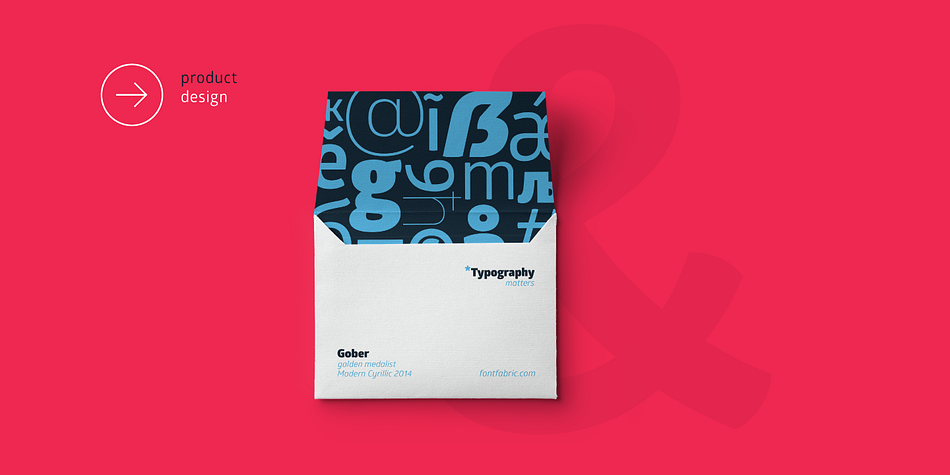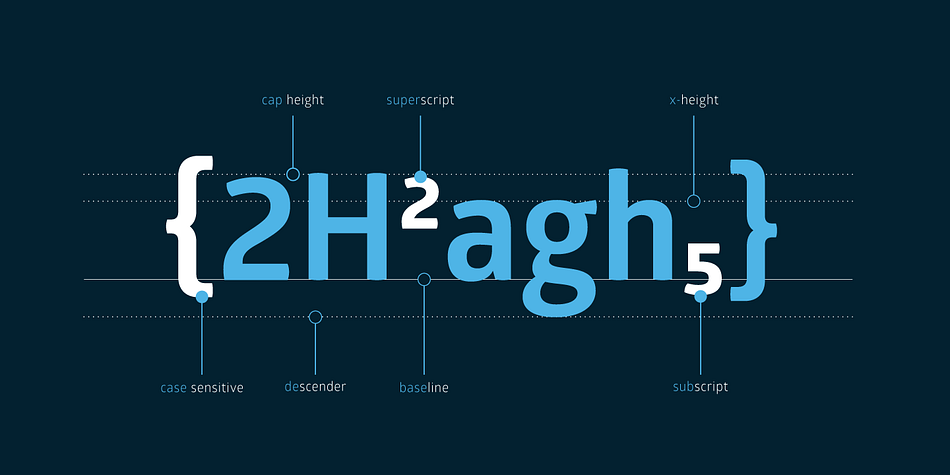
Glober
Glober is a sans serif font family. This typeface has twenty styles and was published by Fontfabric.
It was time to update and upgrade even more our medalist of Modern Cyrillic 2014 — the honored Glober. This type family includes 18 weights — nine uprights with nine true italics and is characterized by excellent legibility, polished glyphs’ outlines, optimized kerning, flawless web-font performance and all-together warm appearance. Glober has its own unique style expressed in the perfect softened geometric forms and humanist apertures.
The update includes several extras as the tabular numerals, period and currency signs; the complete set of inferiors and superiors; the Bulgarian Cyrillic localization; the case sensitive punctuation; and last but not least the broader language support.
• Golden medalist of Modern Cyrillic 2014;
• Over 630 glyphs;
• 18 styles (Thin to Black) — 9 uprights and 9 true italics;
• Contemporary sans serif with smooth endings;
• Normal width and balanced x-height;
• Extended Latin and Cyrillic for more than 130 languages;
• Several localizations including Bulgarian Cyrillic;
• Stylistic alternates;
• Tabular figures and currency signs;
• Inferiors, superiors and fractions;
• Case-sensitive punctuation;